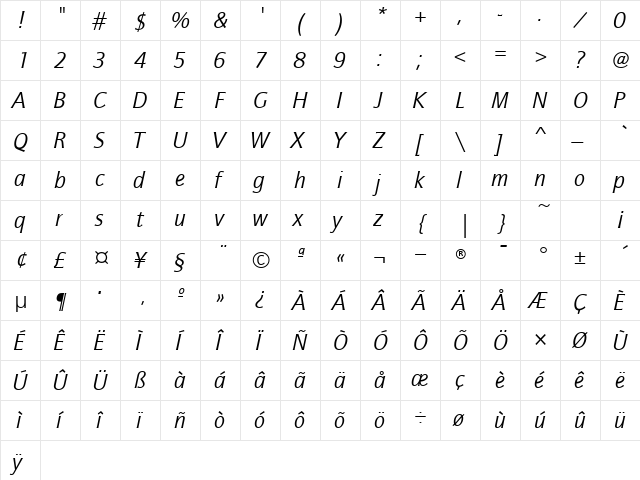
QuaySansITCTT BookItalic
| Foundry | International Typeface Corporation |
| Designer | David Quay |
Design Context for QuaySansITCTT Typeface
QuaySansITCTT takes a measured approach to typography — its balanced proportions and neutral character make it a reliable workhorse for both digital and print work. Its italic angle brings a sense of urgency and motion to the letterforms.